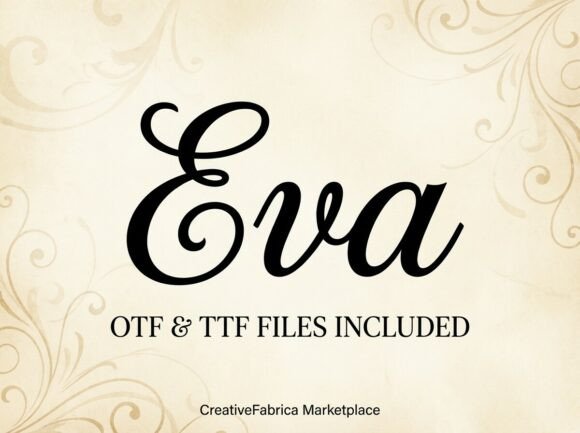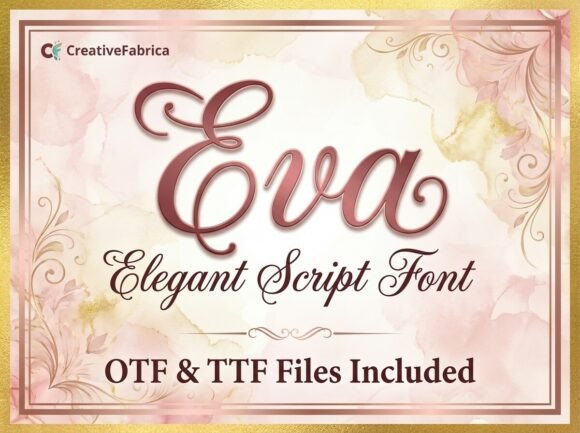
Eva Font: Elevate Your Design with Elegant Calligraphy
In the world of typography, few fonts capture the essence of luxury and sophistication as effortlessly as Eva. This elegant calligraphy script is a masterclass in minimalist grace, boasting a balanced rhythm of thick and thin strokes, accompanied by effortless, spiraling swashes. The result is a clean, hand-penned look that exudes refinement and poise, making Eva the perfect choice for luxury lifestyle branding, high-end editorial headers, formal event invitations, and boutique product packaging.
The Art of Elegance: What Makes Eva Stand Out
Eva’s design is rooted in the principles of classic calligraphy, with a modern twist that sets it apart from more traditional scripts. The font’s creator has meticulously crafted each letterform to convey a sense of fluidity and movement, as if written with a fine pen or brush. The subtle variations in line width and the organic, hand-crafted feel of the swashes imbue Eva with a sense of authenticity and human touch.
Key Features of Eva Font
- Balanced rhythm of thick and thin strokes: Eva’s letterforms are characterized by a harmonious balance of bold and delicate strokes, creating a visually appealing contrast that adds depth and interest to any design.
- Effortless, spiraling swashes: The swashes that adorn Eva’s letters are carefully designed to flow organically from the stems, adding a touch of elegance and sophistication to the font.
- Clean, hand-penned look: Eva’s clean and legible design makes it perfect for use in a variety of applications, from digital media to print materials.
Perfect Applications for Eva Font
Eva’s versatility and elegance make it suitable for a range of design projects that require a touch of luxury and sophistication. Some ideal applications for Eva include:
- Luxury lifestyle branding: Eva’s refined and polished aesthetic makes it an excellent choice for high-end brands looking to establish a sophisticated visual identity.
- High-end editorial headers: Add a touch of glamour to your editorial designs with Eva’s elegant script, perfect for magazine headers, article titles, and more.
- Formal event invitations: Make a lasting impression with Eva’s beautiful calligraphy, ideal for wedding invitations, gala invitations, and other formal events.
- Boutique product packaging: Elevate your product packaging with Eva’s sophisticated design, perfect for luxury goods, cosmetics, and high-end retail.
Tips for Working with Eva Font
To get the most out of Eva, consider the following tips:
- Use Eva as a headline font: Eva’s elegance and sophistication make it perfect for use as a headline font, where it can add a touch of luxury and glamour to your design.
- Pair Eva with a neutral font: Balance Eva’s elegance with a neutral font, such as a sans-serif or serif font, to create a harmonious and visually appealing design.
- Experiment with swashes: Eva’s swashes can add a touch of personality to your design. Experiment with different swash styles and combinations to find the perfect look for your project.
Eva font is a true masterpiece of elegant calligraphy, offering a sophisticated and refined aesthetic that’s perfect for luxury lifestyle branding, high-end editorial headers, formal event invitations, and boutique product packaging. With its balanced rhythm of thick and thin strokes, effortless swashes, and clean, hand-penned look, Eva brings a polished, timeless quality to any design project. Whether you’re a designer, craftsperson, or simply someone who appreciates beautiful typography, Eva is sure to inspire and elevate your work.